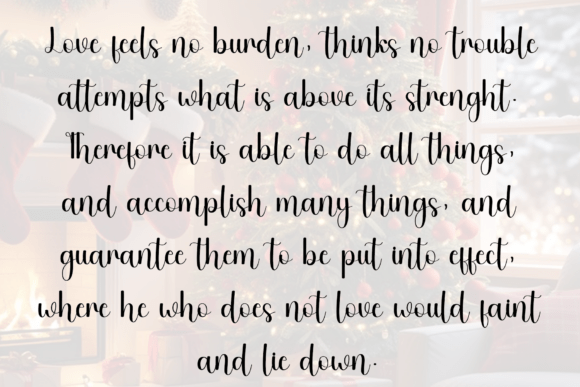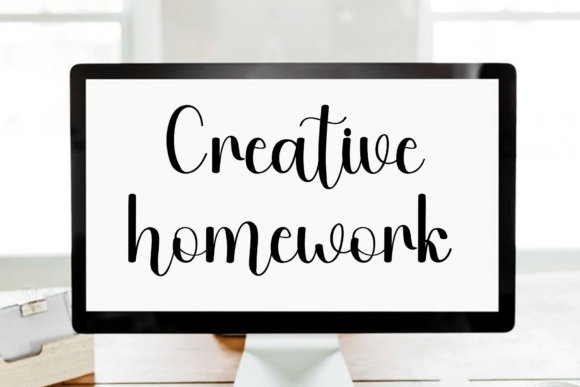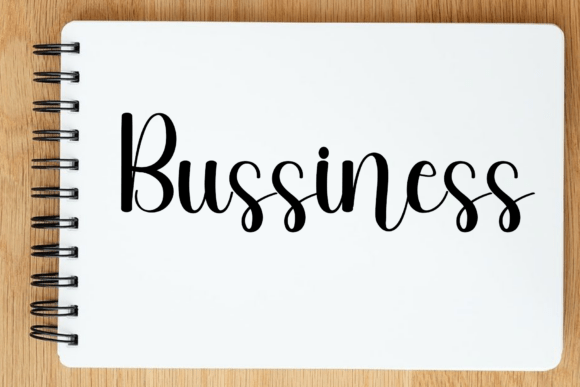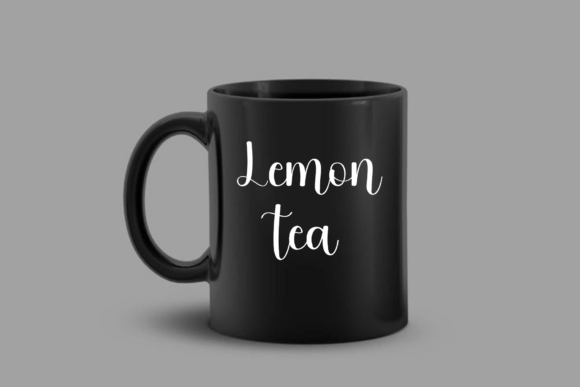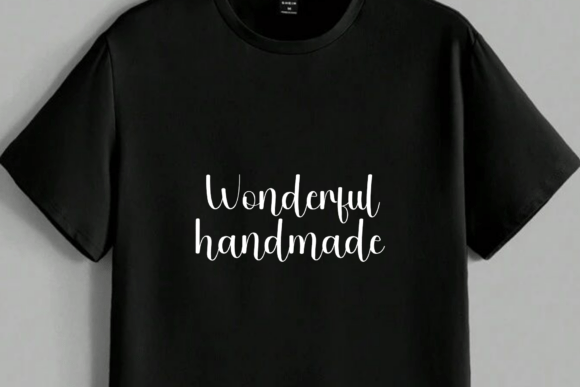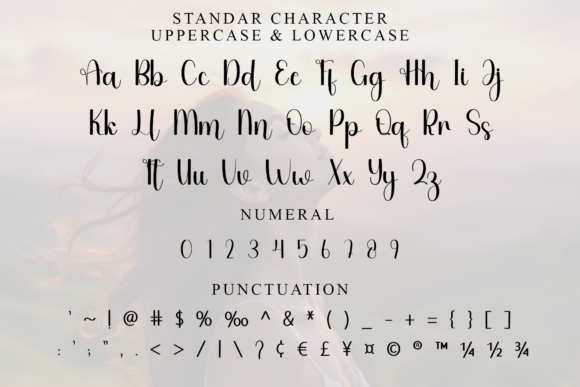
Discover the Charm of Americano Font: A Casual and Creative Typeface
Are you looking for a font that can add a personal touch to your designs? Look no further than the Americano Font, a casual and creative typeface that exudes warmth and friendliness. With its round, playful strokes, this font creates a relaxed and approachable feel, perfect for a variety of design projects.
The Characteristics of Americano Font
Americano Font is a hand-drawn typeface that boasts a charming and unique aesthetic. Its playful strokes and rounded edges give it a friendly and approachable feel, making it ideal for designs that require a personal touch. Whether you’re working on a personal project, creating invitations, or designing social media graphics, Americano Font is the perfect choice.
Perfect for Personal Projects and Designs
Americano Font is designed to add a fun and unique touch to any design. Its casual and creative vibe makes it perfect for a variety of personal projects, such as:
- Personal invitations, like birthday or wedding invitations
- Social media graphics, like Facebook posts or Instagram stories
- Blog or website headers
- DIY craft projects, like handmade cards or gift tags
Advantages of Using Americano Font
So, why choose Americano Font for your designs? Here are just a few advantages:
- Unique and creative aesthetic: Americano Font adds a fun and unique touch to any design, setting it apart from more traditional typefaces.
- Easy to read: Despite its playful strokes, Americano Font is easy to read, making it perfect for designs that require a clear and concise message.
- Versatile: Americano Font can be used for a range of design projects, from personal invitations to social media graphics.
Tips for Using Americano Font
To get the most out of Americano Font, here are a few tips:
- Use it for headings and titles: Americano Font is perfect for headings and titles, where its playful strokes can add a fun and creative touch.
- Pair it with a simple font: To create visual interest, pair Americano Font with a simpler font for body text.
- Experiment with colors and textures: Americano Font looks great with a range of colors and textures, so don’t be afraid to experiment and find the perfect combination for your design.
Americano Font is a casual and creative typeface that can add a unique and personal touch to any design. With its playful strokes and charming aesthetic, it’s perfect for personal projects, invitations, and social media graphics. Compatible with a range of design applications, Americano Font is a versatile and easy-to-use font that’s perfect for designers and crafters alike.
Get Creative with Americano Font